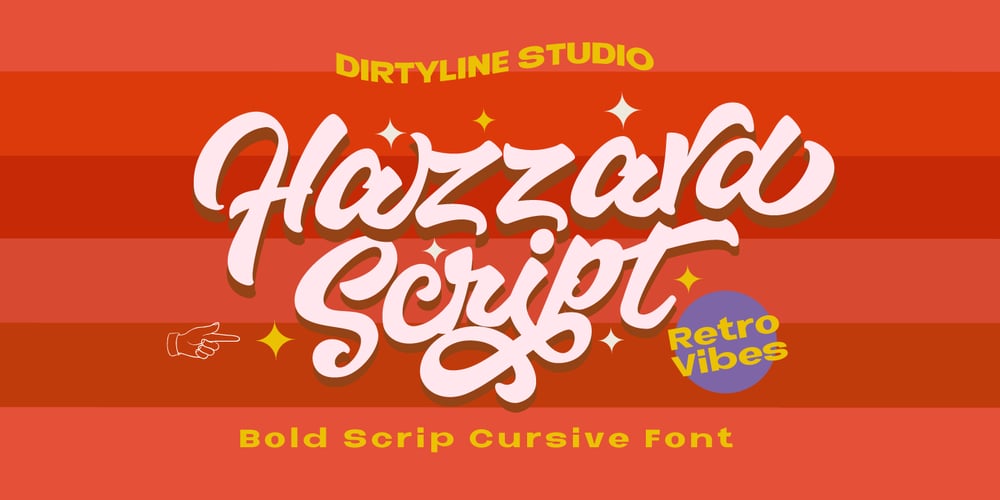
Hazzard
Hazzard font
Hazzard Font Family was designed by Hendra Maulia and published by Dirtyline Studio. Hazzard contains 1 styles and family package options. Hazzard is a script that is inspired by a retro style and combination with hand lettering style. I have made with personality in every single curve. I hope this can inspire your work with its very bouncy baseline. It also includes a super handy set of bonus swashes. Hazzard is ideal for logos, handwritten quotes, product packaging, header, poster, merchandise, social media & greeting cards.